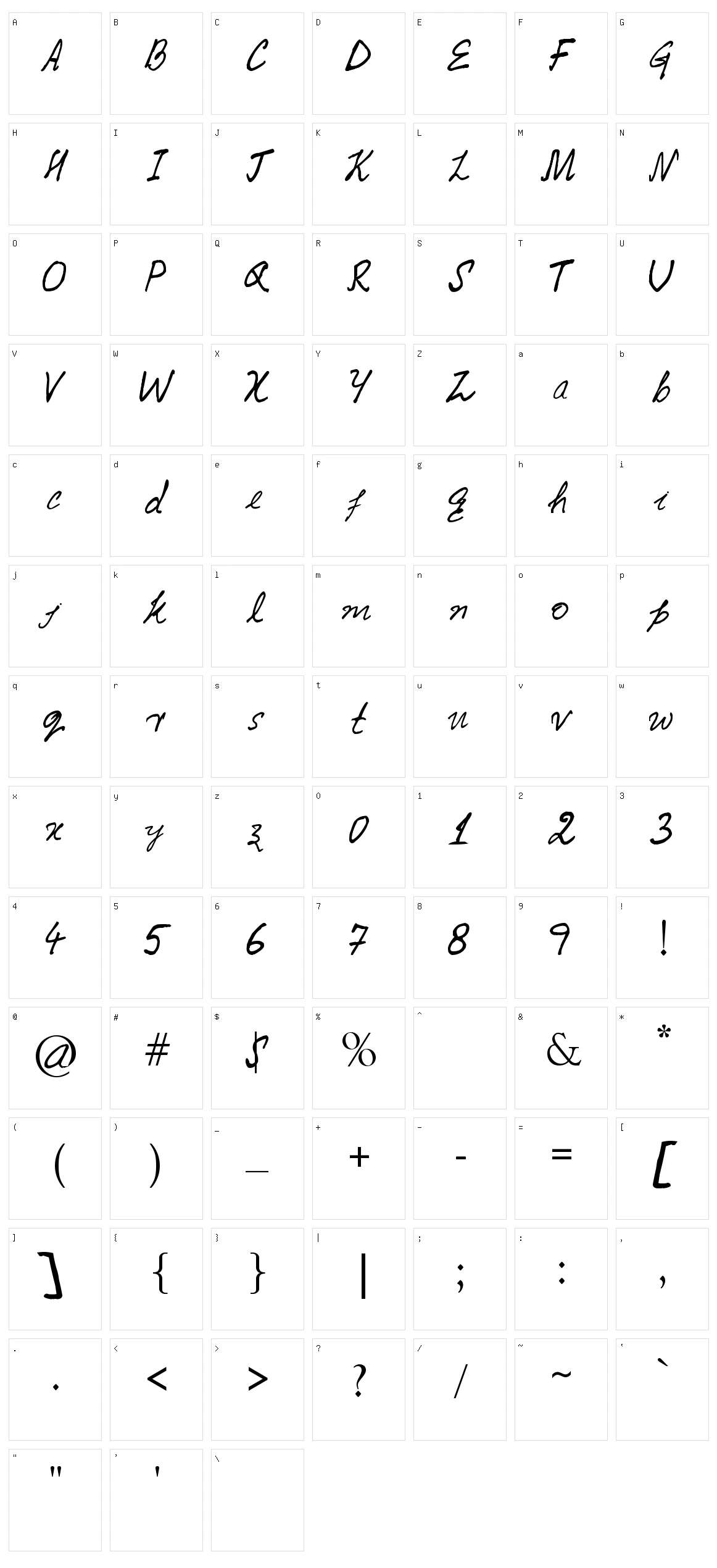
The free font Caintanya is carefully designed by Bhavesh Shaha, showcasing a thoughtful balance of creativity and usability and falls under the Script font style. When you download the ZIP file, it contains only 21.21 KB of font files, making it lightweight and quick to download. Please review the license details below to understand permitted usage and distribution rights. If license information is not available, we recommend using this font for personal projects only or contacting the author directly for commercial usage permissions.